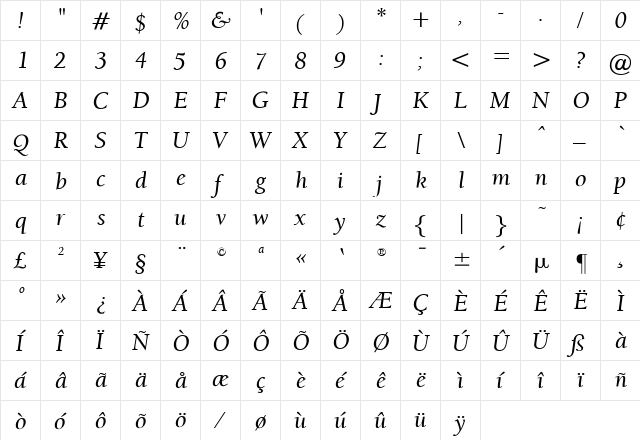
OPTIBensonOldstyle Medium
Design Context for OPTIBensonOldstyle Typeface
OPTIBensonOldstyle brings classic typographic sensibility to the table — its serifs and measured letterforms reflect centuries of print heritage.
Pro Tip: Set OPTIBensonOldstyle with slightly loose tracking in headlines to let each letterform's detail read clearly at display sizes.